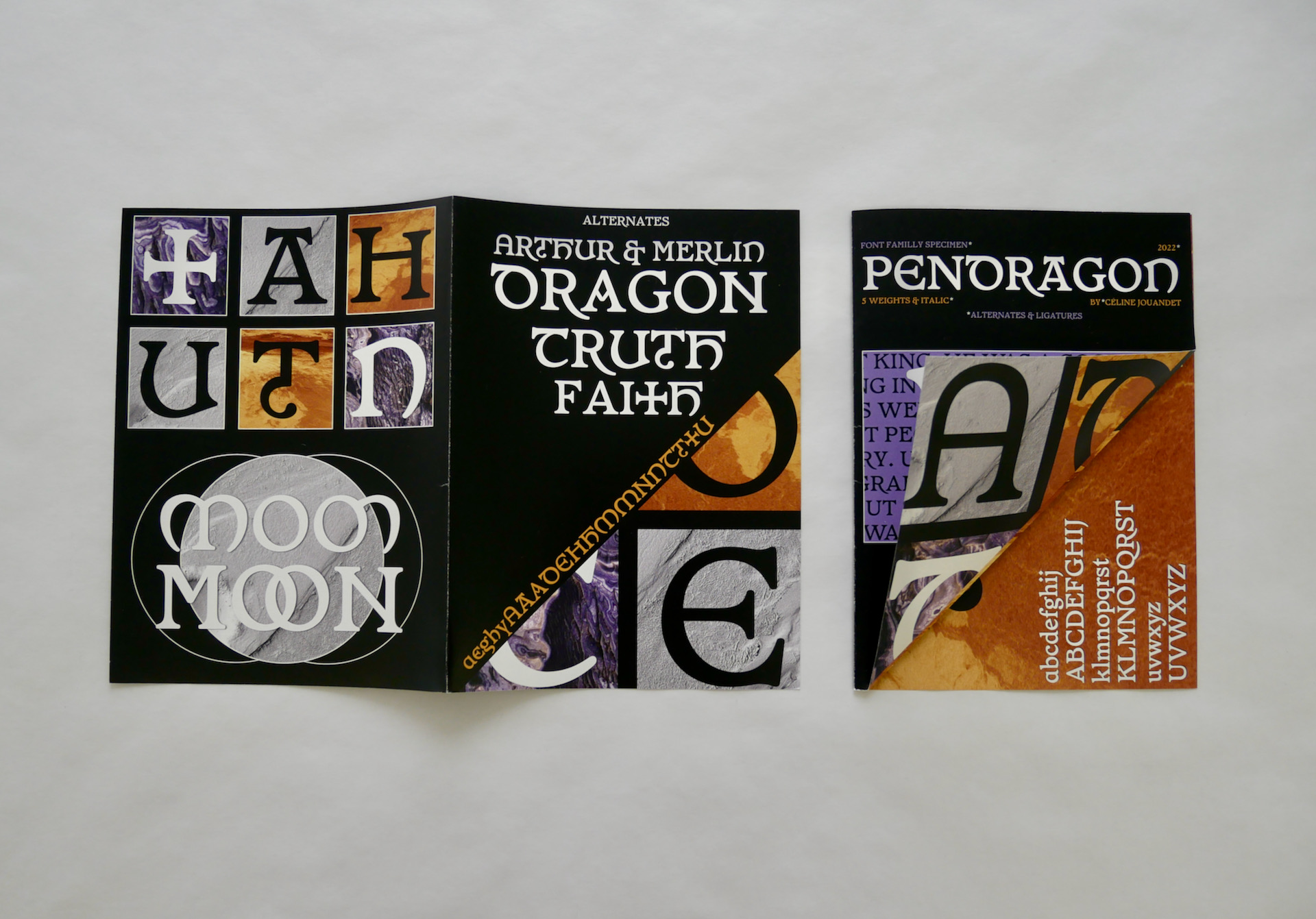
Pendragon
Pendragon is a display type family with 5 weights, ranging from regular to Extrabold and an italic version. It was created for the brand Melting Narratives. It is a young brand of silver jewelry produced in the Netherlands. The world of Tolkien very inspires its universe with a solid Celtic inspiration.
The designer Eloise Dieutegarde says of her work that she likes the passage from liquid to solid, from hot to cold, and the variation of her gender, sometimes masculine and feminine. These material changes inspired me in the conception of this type familly. The regular version is pretty stable but with a certain roundness and goes to something more brutal and sharper with the interpolation of an ultra-bold and super-extended version with sharp angles. The regular version is very stable and pretty adaptable for labor text.
I wanted to create a Celtic Typeface strongly taking references from the past but far from the cliché of Celtic font that we use for Irish bars and beers. The basic inspiration for the typeface is a printed page from William Morris but many other resources were useful in designing this typeface. I looked at a lot of uncial calligraphy to understand the design of my letters. Pendragon features a series of alternative characters and ligatures, typical from the medieval descendants of the Roman capitalis and uncials. Pendragon’s name was also an inspiration for a lot of alternates, particularly for the “g” which evoque a dragon’s tail.
The challenge was to bring back this Celtic universe while taking the essentials without overdoing it and remaining readable, accessible, and not too explicit. The letters are very round and I wanted to keep the contrast between the «straight» letters such as the n which have a smaller cast than the rounds. This contrast creates a certain rhythm and color to the text.
This was not the first time I designed a typeface. I graduated with a Master in Typography in 2021. But Type Paris allowed me to develop my eye even more and to understand some crucial rules about typeface design: balance of counter forms, going to the essentials in the design and designing a set of letters rather than isolated letters. Ian Party was instrumental in the design of Pendragon. He helped me to step back and better understand the challenges of creating letters «in the manner of». I was then able to get to the heart of the matter.
In the future, I will create a sans serif version of Pendragon and develop the alternate set which is very important in the identity of this typeface family. I would also like to adapt some glyphs and monograms to metal carving.